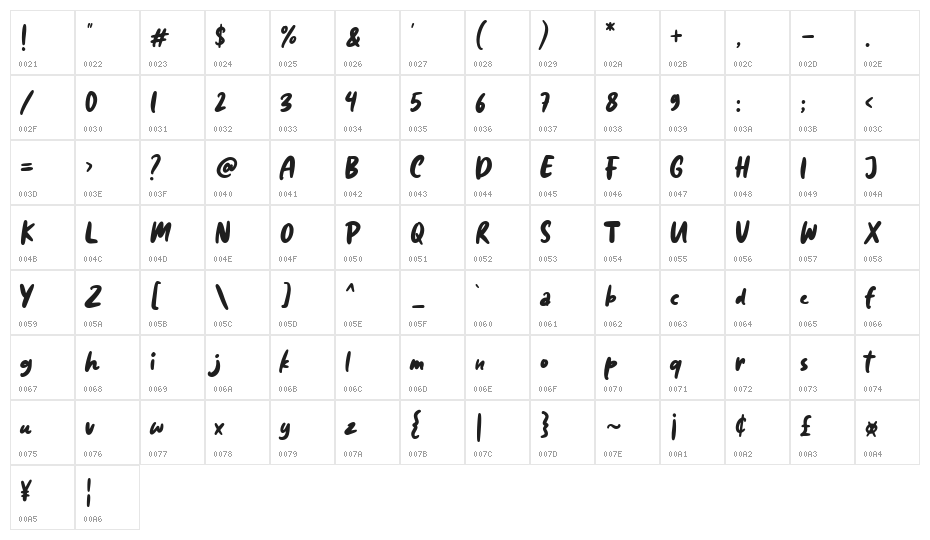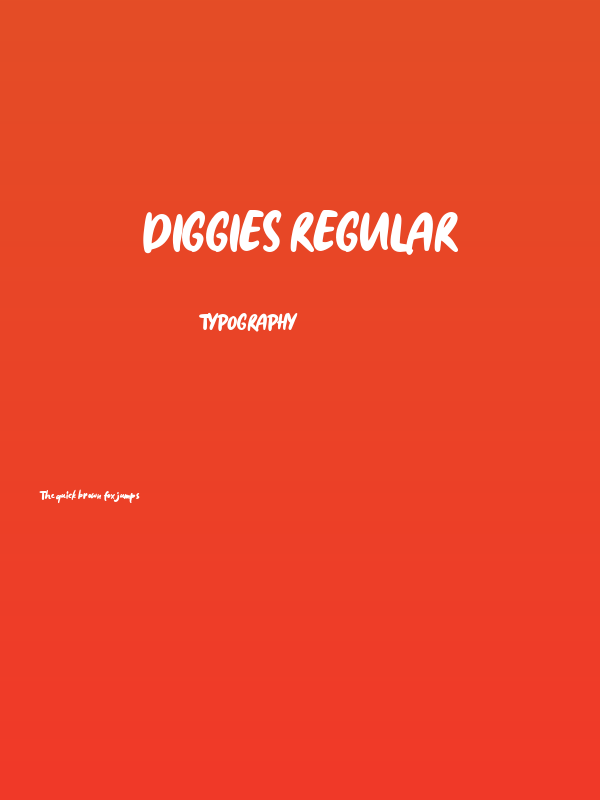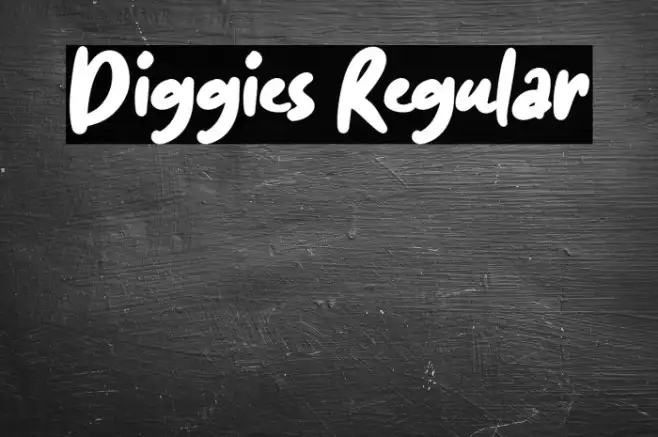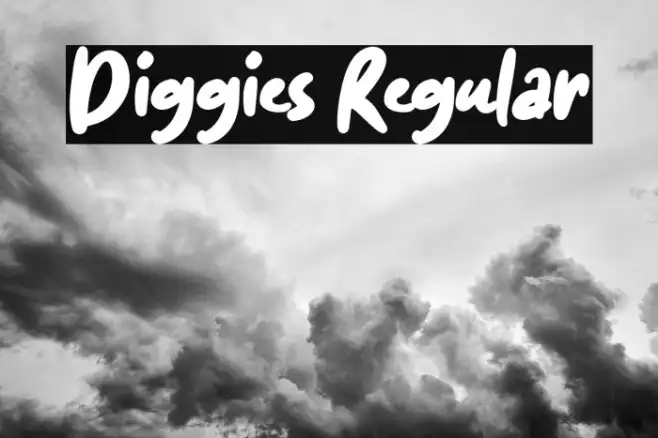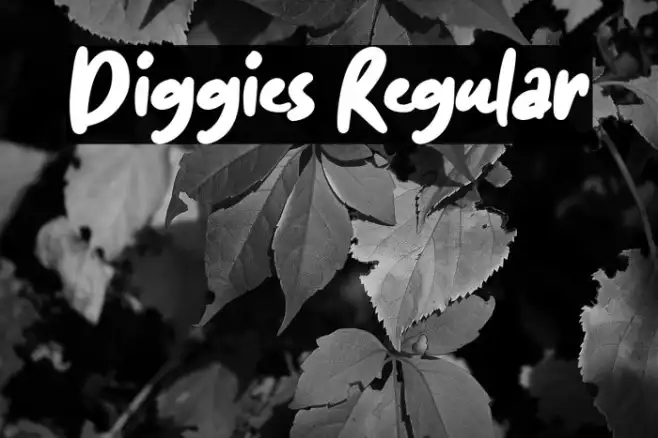
Diggies Regular Font
Diggies Regular Description
This font features a bold and playful handwritten style, characterized by its thick strokes and smooth curves. The letters are slightly slanted, giving a dynamic and energetic feel. The uppercase and lowercase letters maintain a consistent flow, with rounded edges that enhance its friendly appearance. The numerals and special characters are equally bold, ensuring readability and uniformity across different uses. This font is ideal for projects that require a personal touch, such as invitations, greeting cards, or playful branding.
| Proposed Projects | Ideal for invitations, greeting cards, playful branding, and personal projects. |